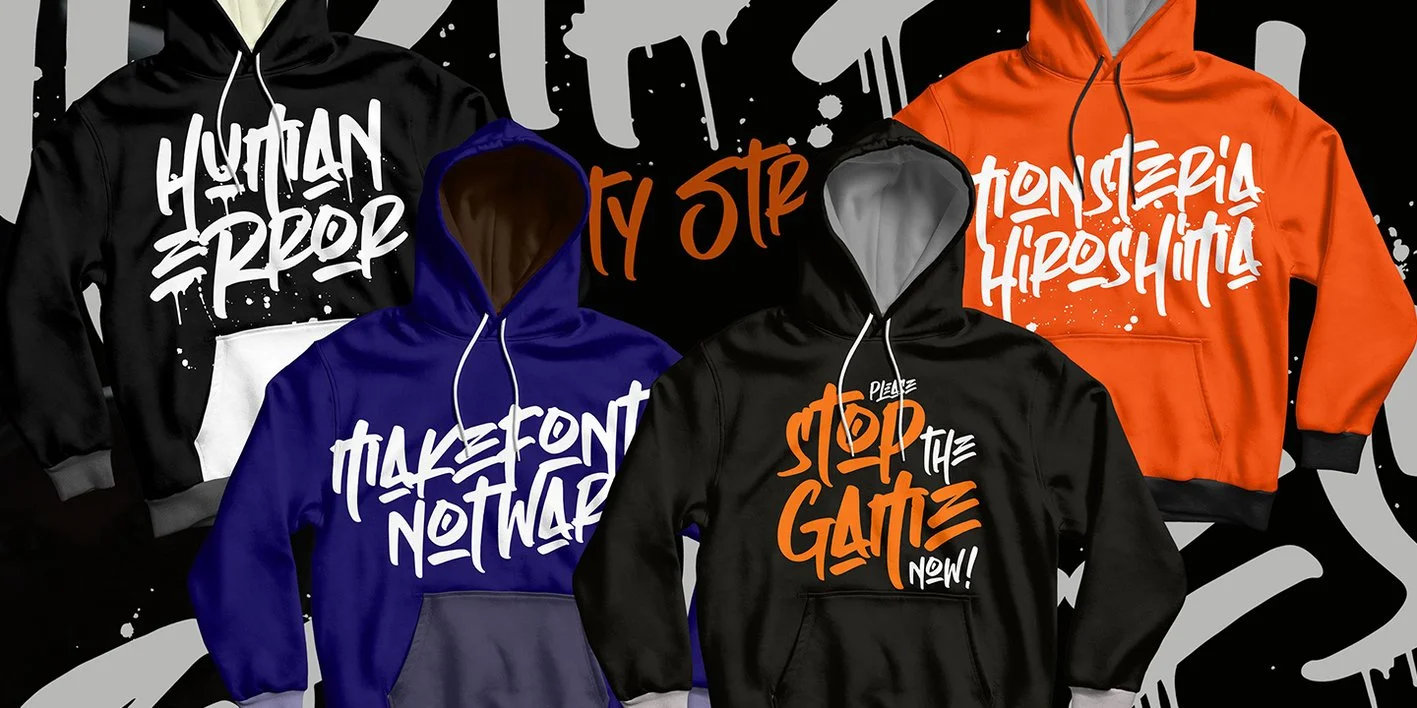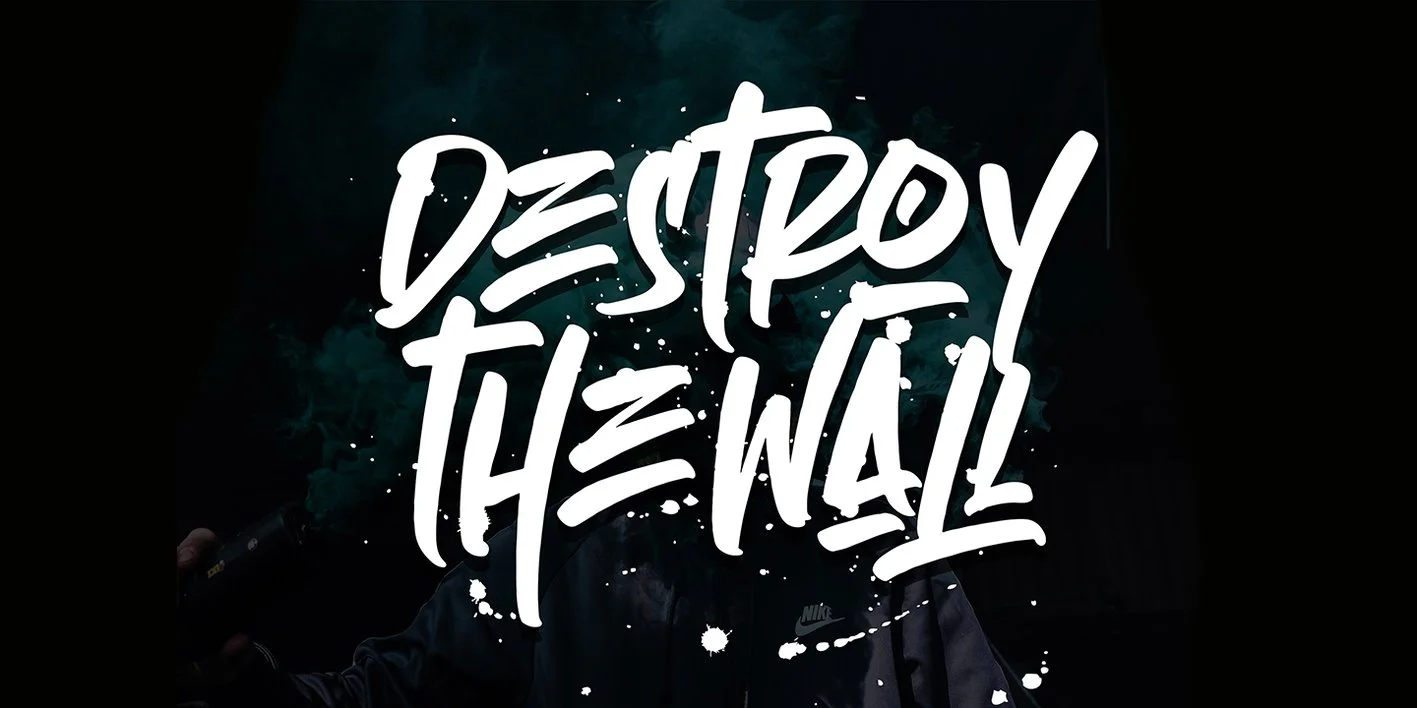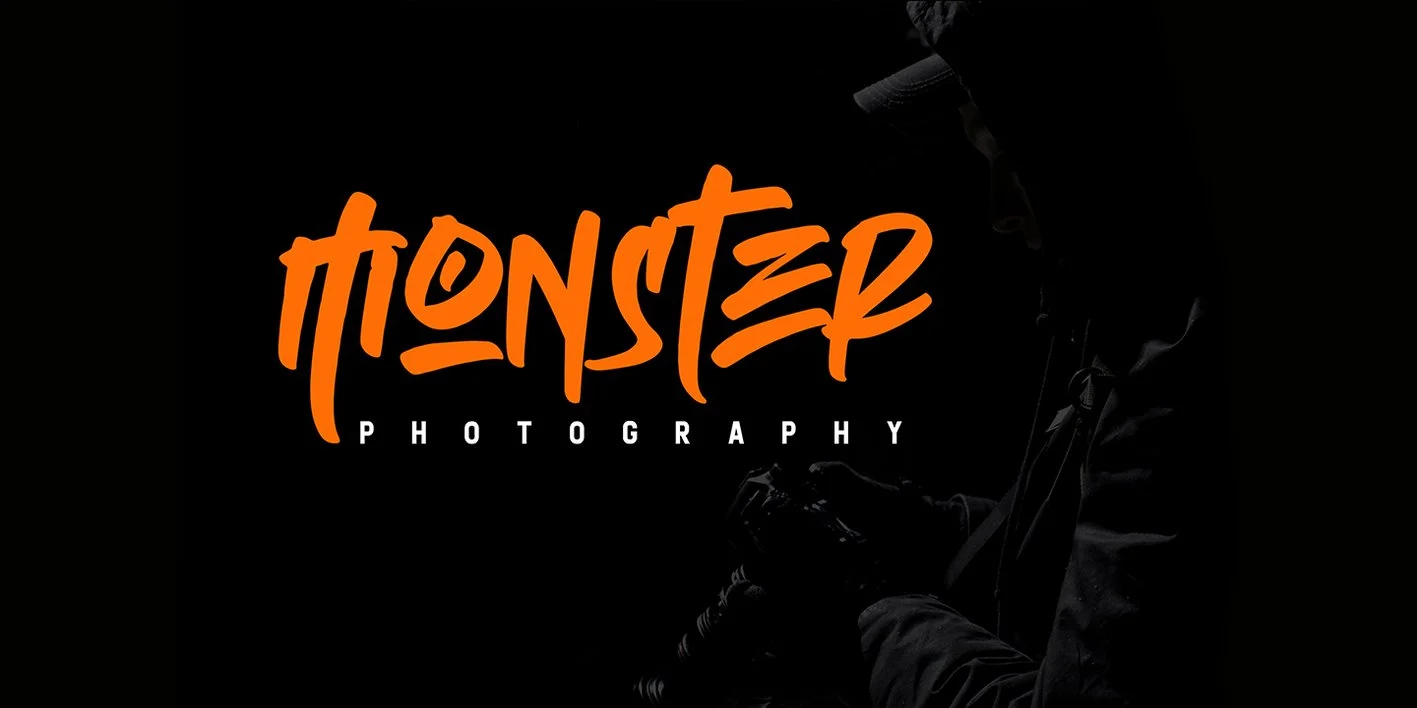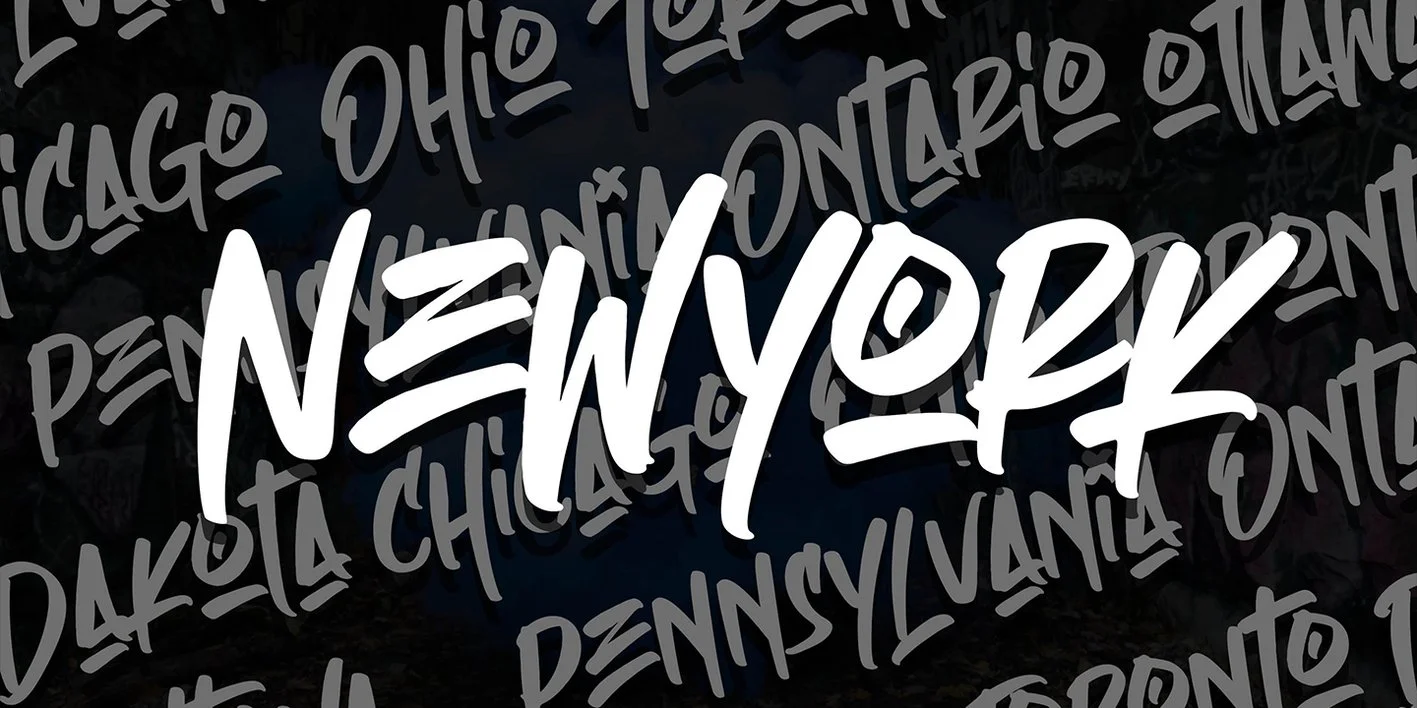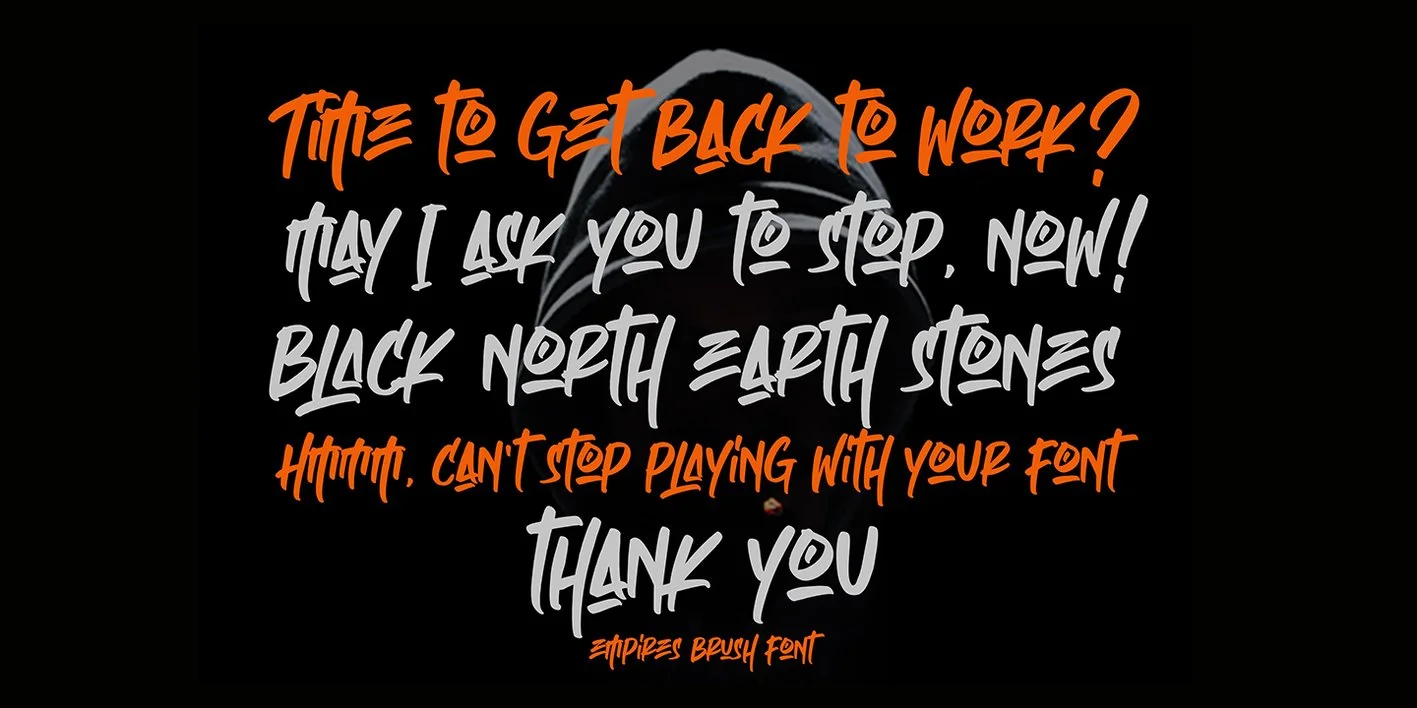
Empires Font
Few typefaces manage to balance visual harmony and precise spacing with genuine day-to-day practicality. Empires is one of them. The typeface brings a versatile sensibility to a broad range of creative disciplines, with the kind of restraint that lets content lead that holds up whether the work is print-first or screen-first.
In practice, Empires proves particularly effective for product labels, environmental graphics, web design, advertising campaigns, packaging design. Designers reaching for it find that the type decisions feel resolved rather than laboured — a useful quality when client timelines are tight.
The range of applications extends to logo design, editorial layouts, brand identity systems, social media graphics. That breadth is deliberate: the proportions and spacing were stress-tested across a wide range of mock briefs before the typeface was finalised.
Pairing Empires with a contrasting serif or a neutral grotesque gives mixed-format layouts a clear visual grammar without requiring constant size adjustments to establish hierarchy.
Brand strategists building visual languages find Empires a reliable choice for projects that demand both personality and restraint. The design avoids the self-conscious quirkiness that dates quickly, settling instead for considered distinctiveness that holds up over time.